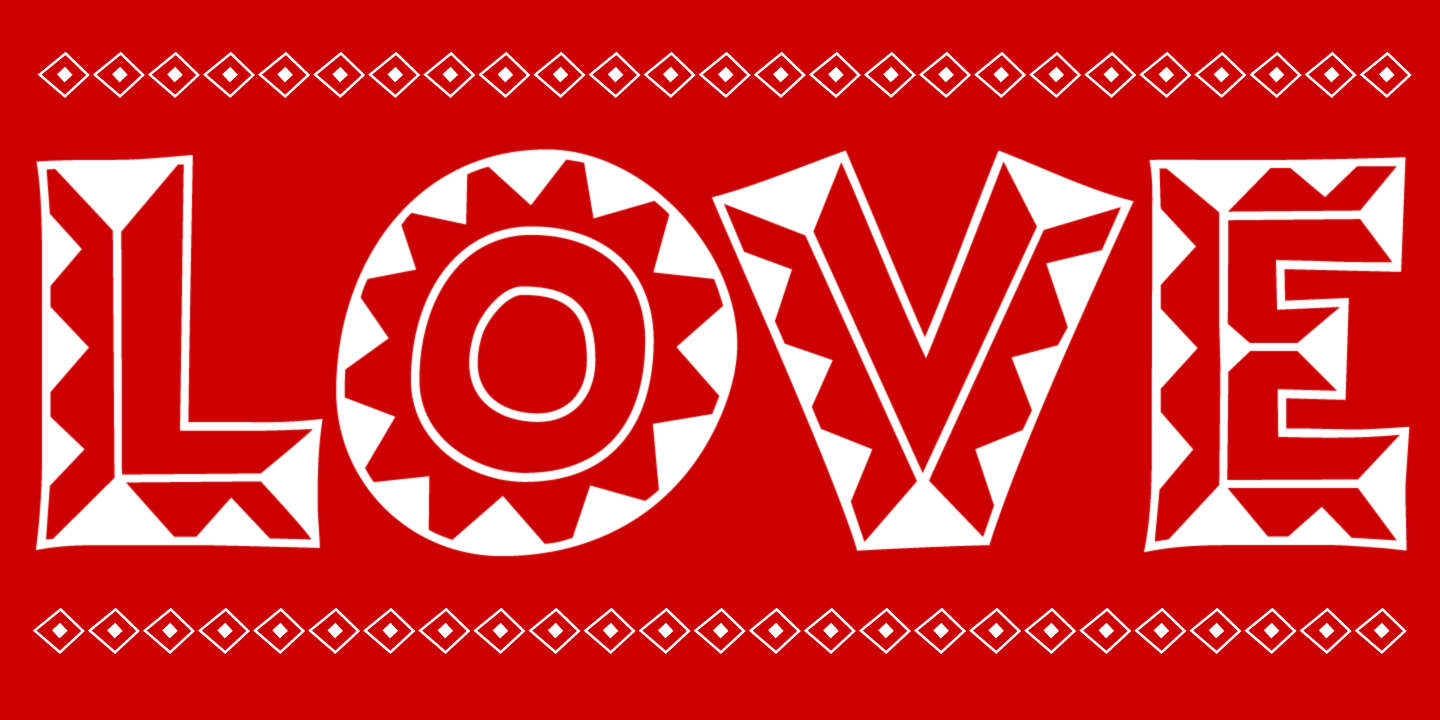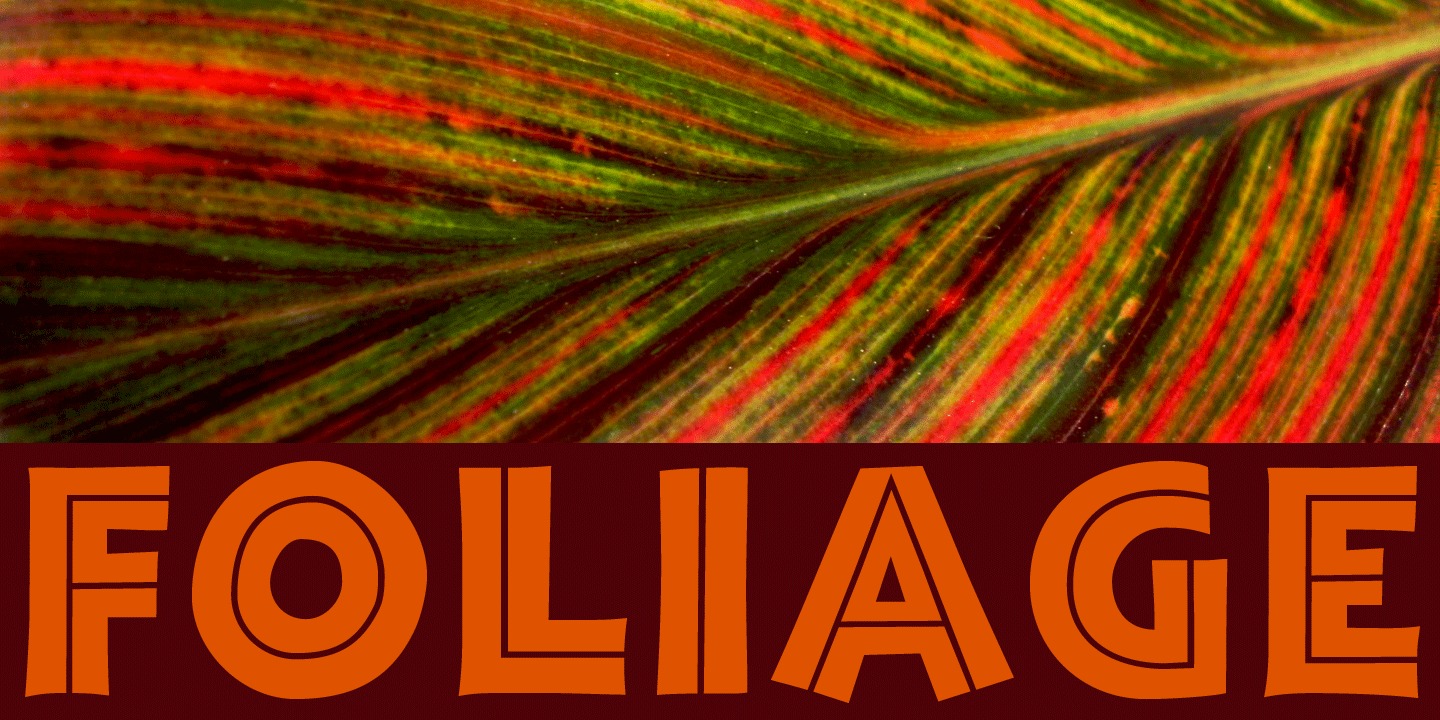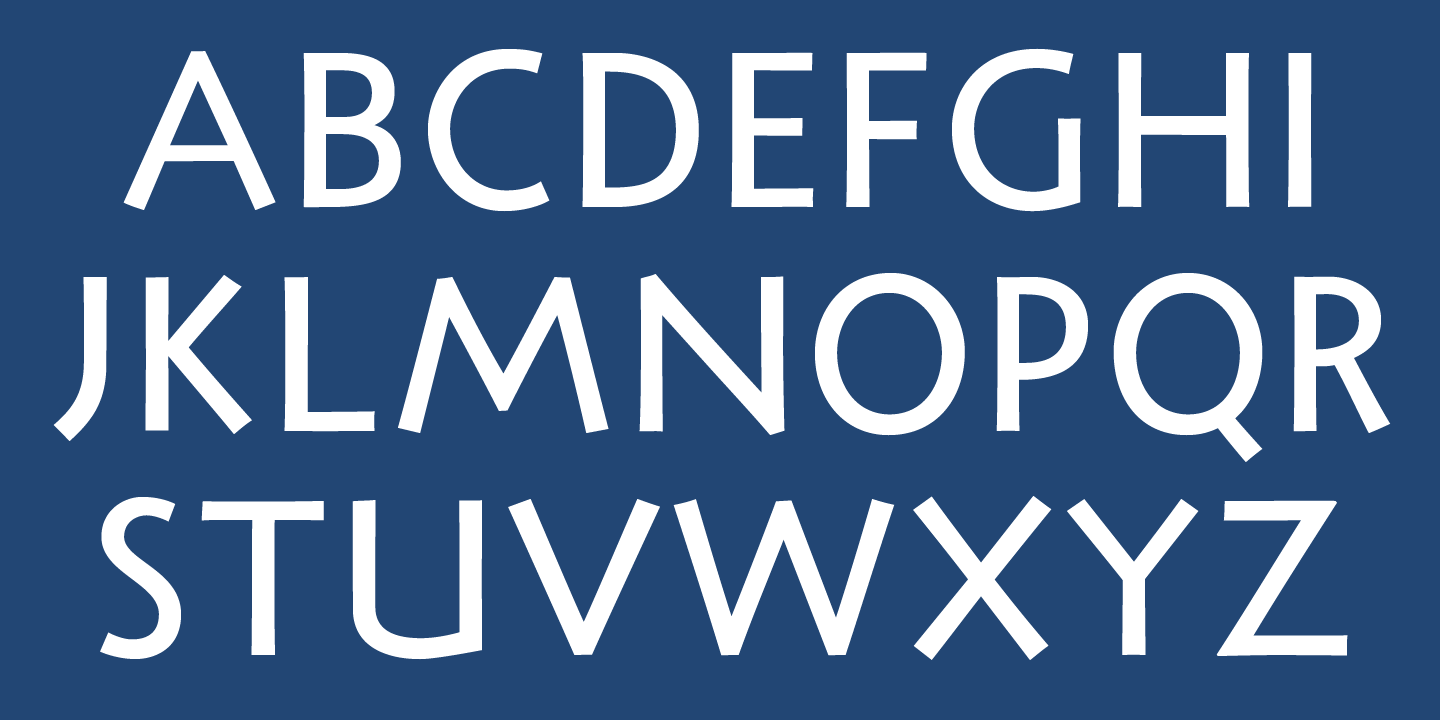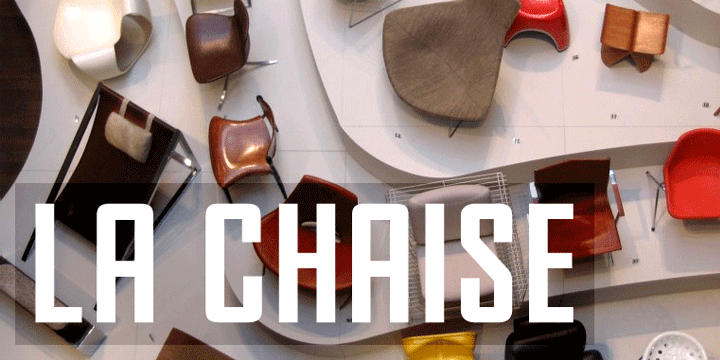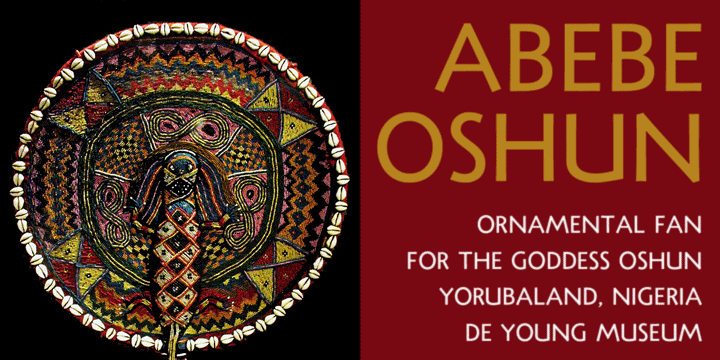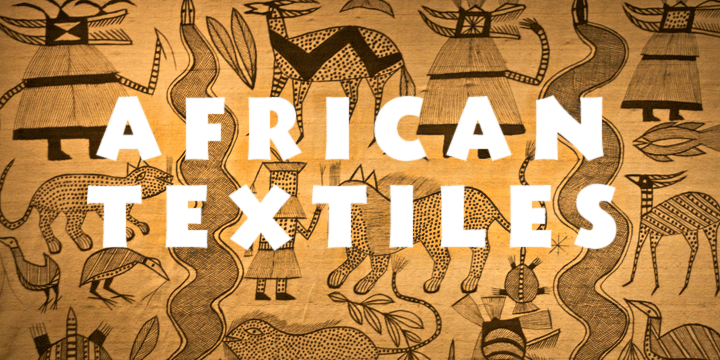
Jason Castle of United States of AmericaJason Castle has had a love for books and lettering ever since he could read (and write). Noticing his fascination for what one teacher considered “ostentatious” handwriting, around the age of 10, Jason’s father taught him an elaborate form of calligraphy known as copperplate script (which much later became the inspiration for his digital font by that name). In his twenties — during what he calls his “medieval period” — Jason was performing medieval music and studying lettering and illumination of the Middle Ages and early Renaissance. Jason later became a computer programmer for many years, but needing a more creative outlet, eventually combined his love of computers with that of typography and started creating digital fonts. Not surprisingly, his first attempt was a face inspired by the Middle Ages, Goudy Text. While keeping his day job, Jason continued to create fonts for fun, and before long started getting commissions to digitize old typefaces, mostly from the art deco period. Eventually quitting his day job, Jason dedicated himself full-time to digital type design, reviving antique typefaces as well as creating original designs. More recent work includes custom type design for clients such as S&W Foods, Chevron, and Shiseido. A native Californian, Jason is currently studying psychology at Dominican University of California. He looks forward to finishing his degree and, hopefully, finding time to create many more typefaces. Jason releases his fonts as CastleType fonts. Fonts by Jason CastleAfrika Borders, Afrika Motifs, Agency Gothic CT, Ampersands, Carlos, Castle Fleurons, Chinoise, Cloister Black CT, Copperplate Script, Dionisio, Eden CT, Esencia, Fat Freddie, Goudy Lombardy, Goudy Stout CT, Goudy Text CT, Goudy Trajan, Handsome, Jensen Arabique, Koloss CT, Laureat, Maximillian CT, Metropolis CT, Minotaur, Plantain , Plantain Stencil, Radiant Extra Condensed CT, Ransahoff CT, Rudolf, Samira, Sculptura CT, Shàngó, Shàngó Chiseled, Shàngó Gothic, Shàngó Sans, Standard CT, Tambor, Trio CT, Warrior, Xavier, Zagora, Zuboni Stencil Browse all fonts by Jason Castle ActivitiesRelated LinksPlease note: This is not an official page of Jason Castle and e-mailing us is not a good way to contact him. Corrections welcomed. |